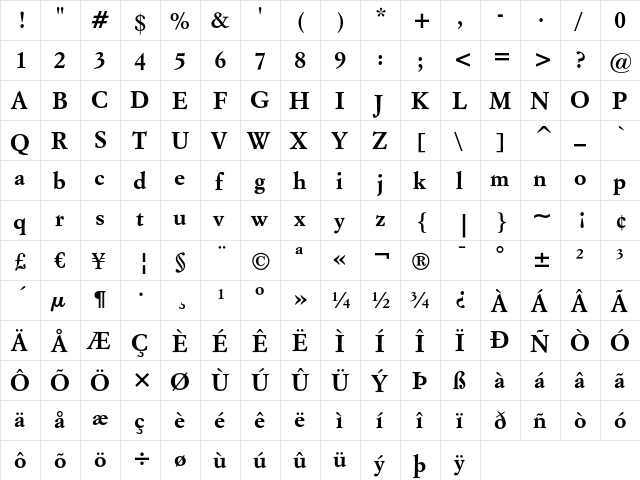
Italian Garamond Bold
Design Context for Italian Garamond Typeface
Italian Garamond takes a measured approach to typography — its balanced proportions and neutral character make it a reliable workhorse for both digital and print work. The heavy weight commands attention and anchors typographic hierarchies.